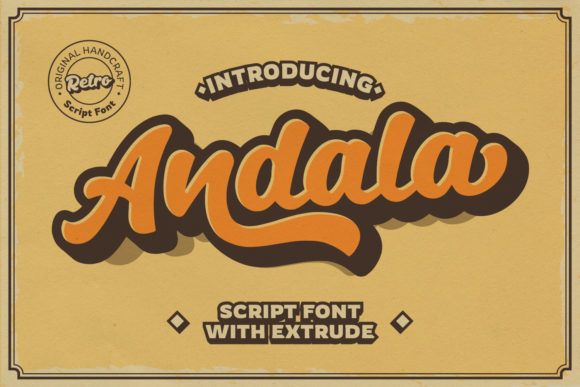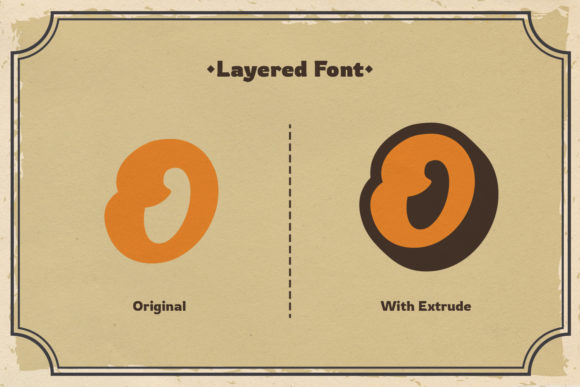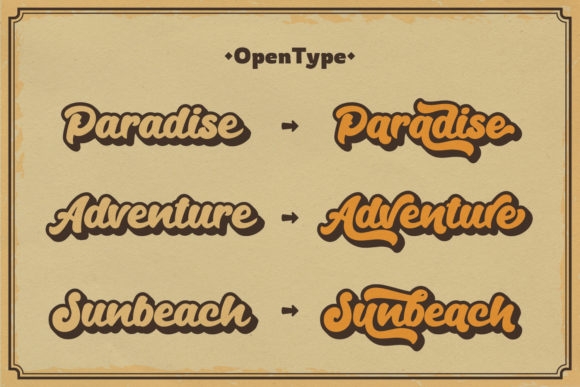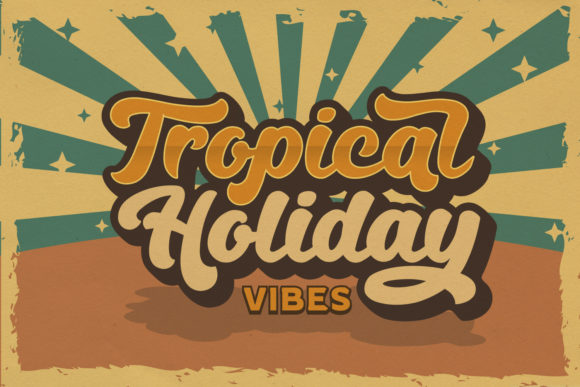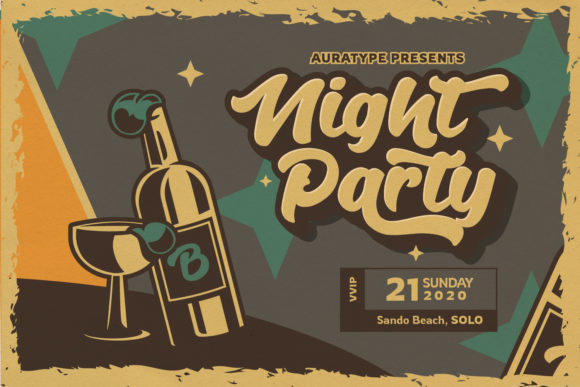
About Andala Font
Andala is a cute and quircky handwritten font. This font is perfect for use on posters, logos, book covers, t-shirt designs, packaging and more.